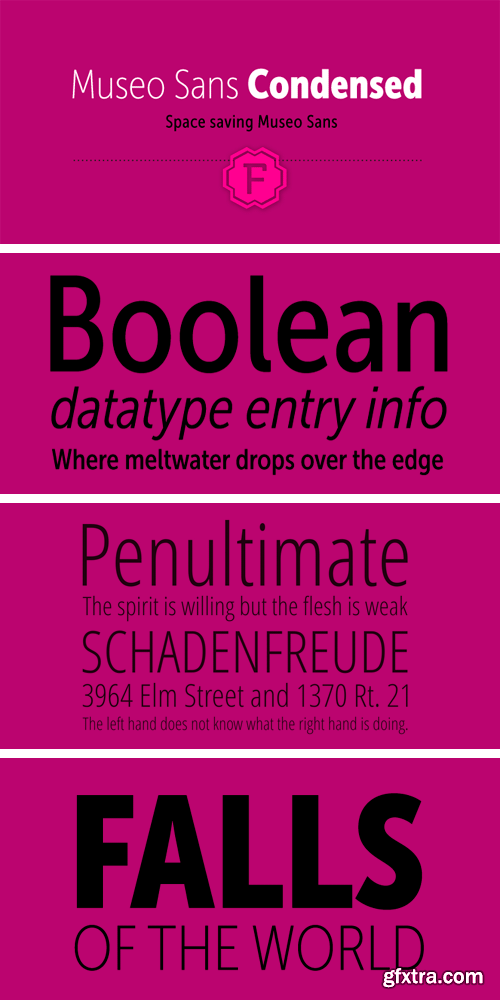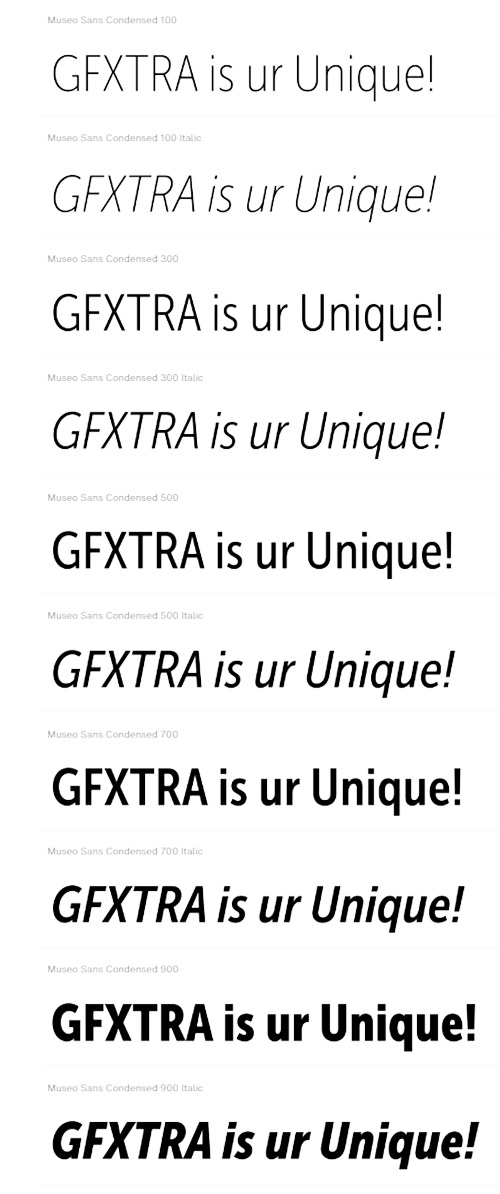
- Museo Sans is a full-featured, highly legible sans serif font family designed by Jos Buivenga. Museo Sans sports a familiar look and is based on the popular Museo serif typeface family. Museo Sans has a sturdy, low contrast, geometric design style that works well in both text and display sizes. The Museo Sans font family includes 10 fonts: 5 different weights with matching italics with Western and Central European language support. The OpenType features in Museo Sans includes ligatures, fractions, proportional, tabular lining and oldstyle figures. Museo Sans is a trademark of Exljbris Font Foundry and may be registered in certain jurisdictions.